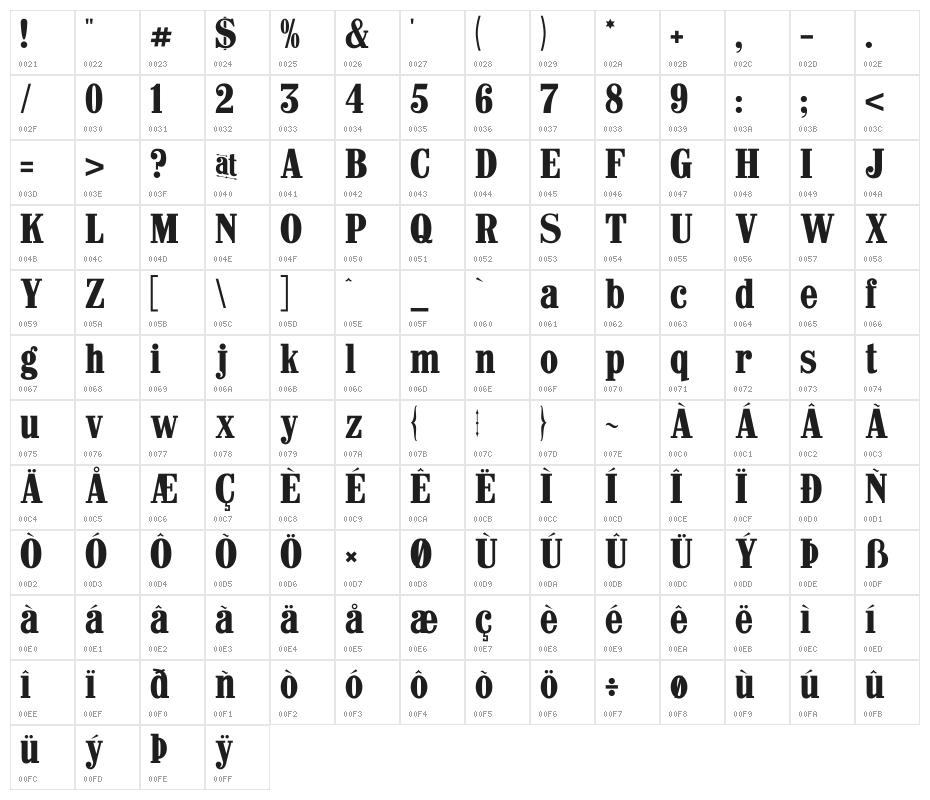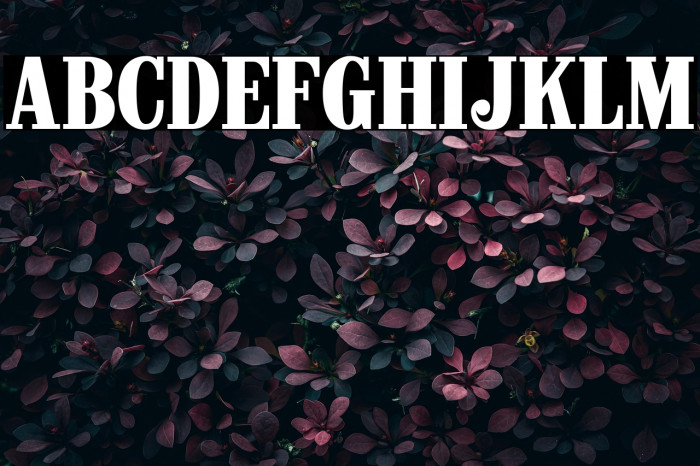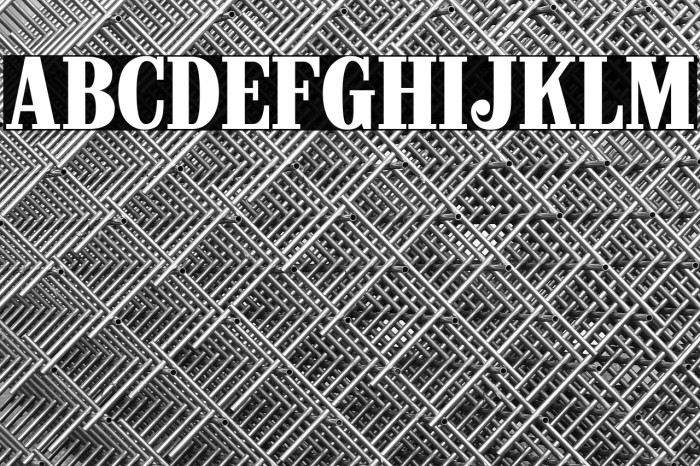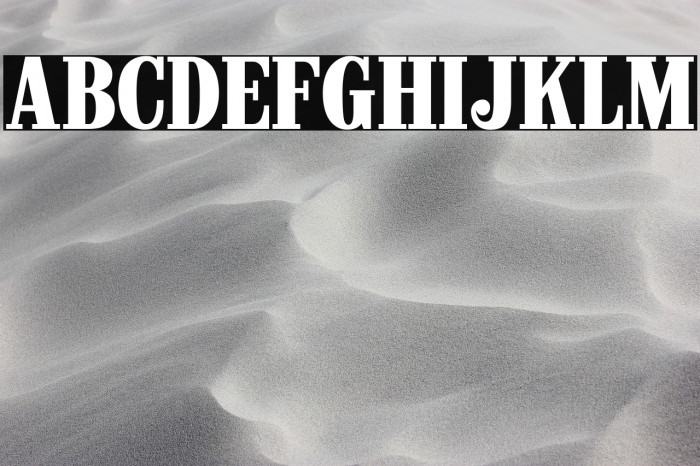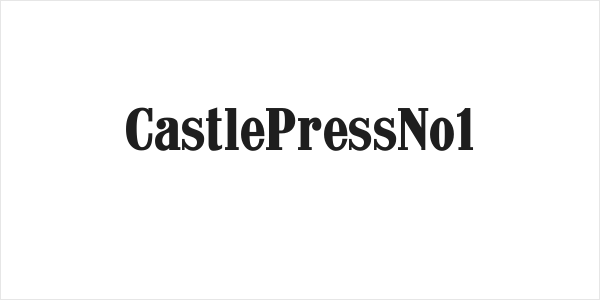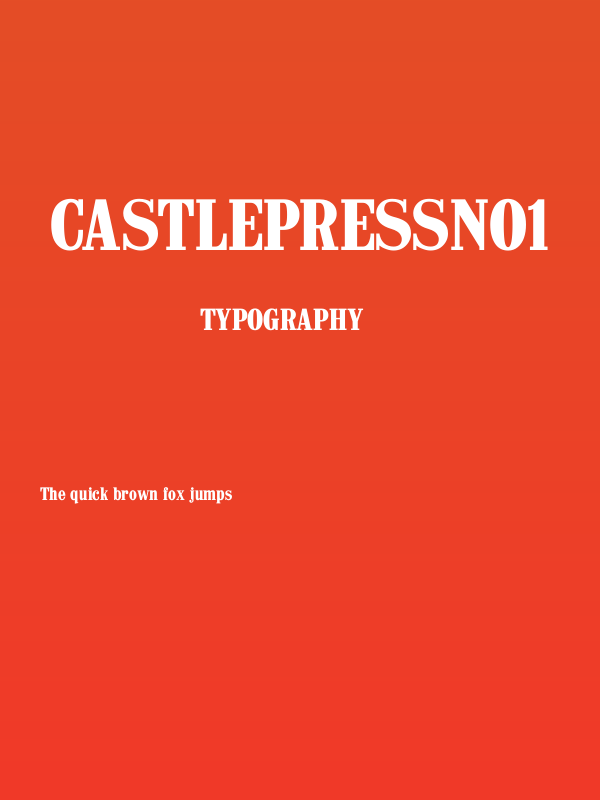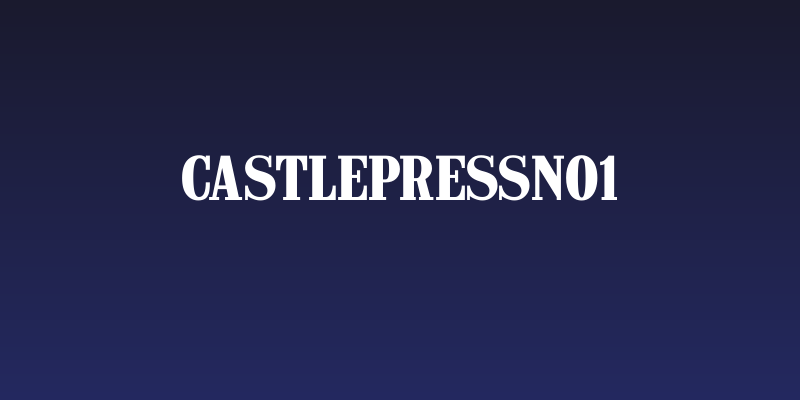
CastlePressNo1 Font
CastlePressNo1 Description
This font features bold, impactful characters with a strong presence, making it ideal for attention-grabbing headlines and titles. The uppercase letters are robust and commanding, while the lowercase letters maintain a consistent weight and style. The numerals are equally bold, ensuring readability and emphasis. Special characters are designed with the same boldness, providing a cohesive look across all text elements. The font's design is reminiscent of traditional serif styles but with a modern twist, offering versatility in various design contexts.